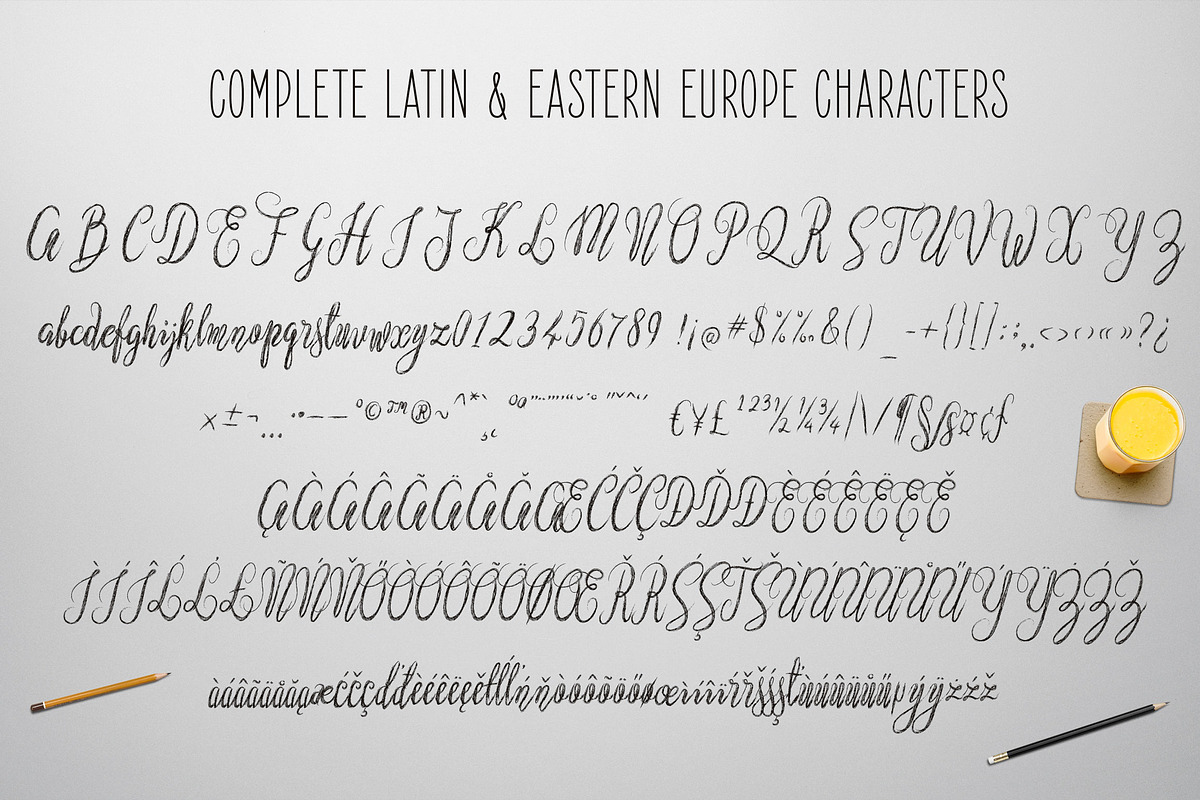
Nostar Script
Presenting my cool dry brush handwritten font. It will nice to standing up your design.
- Contain 475 glyphs and supported to basic Latin character and eastern Europe language.
- 259 total alternate characters for uppercase and lowercase characters.